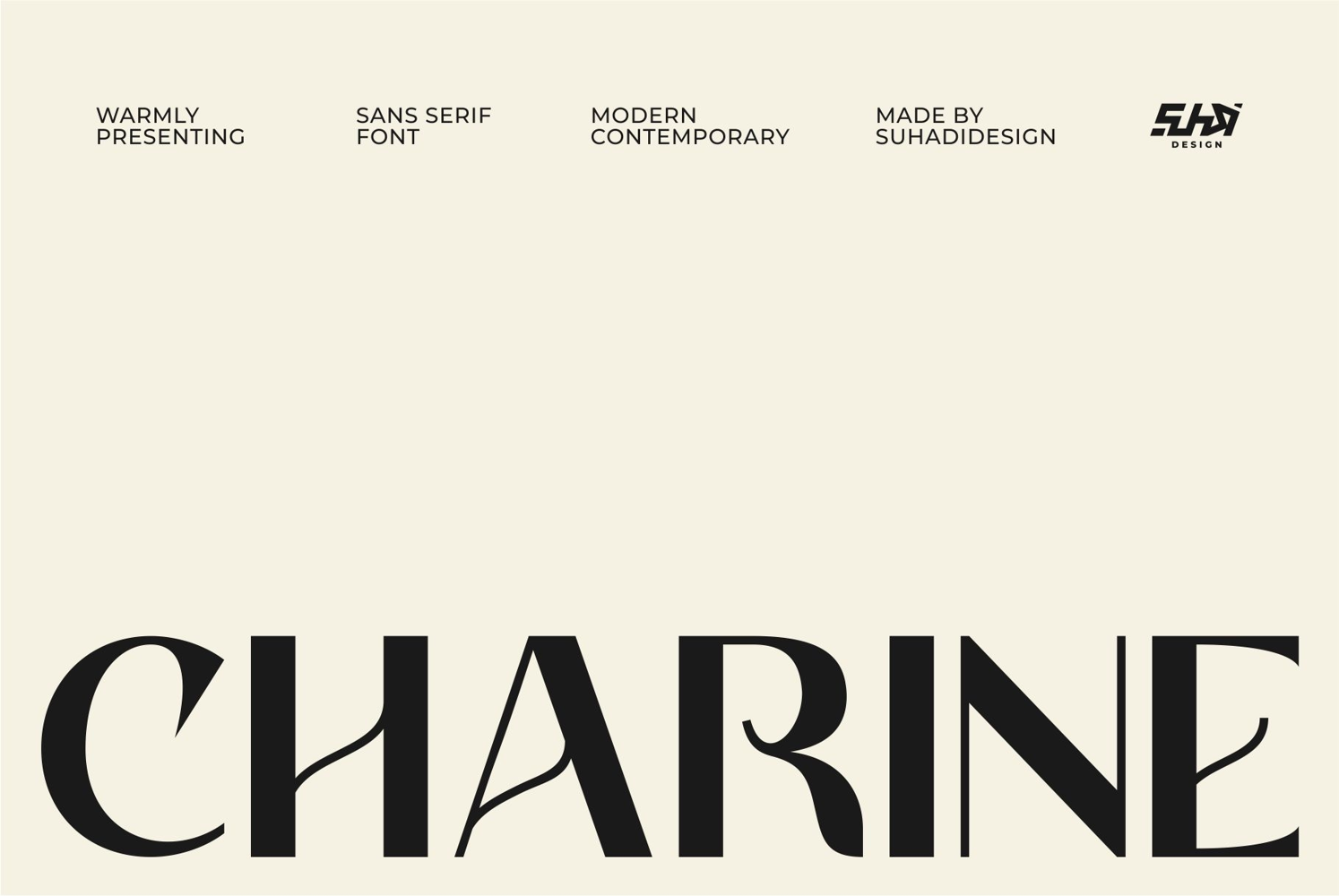
Charine - Modern Sans Serif Font
Charine
Charine - Modern Sans Serif Font
The latest stylish modern font is here, and it's highly sought after by both women and men. This is the Charine font. Charine is a simple, modern sans serif font. With its modern and minimalist design, this font has become a favorite on the market. We've kept this font looking elegant, classy, ​​and stylish. The Charine font is the perfect choice for brands, logos, trademarks, magazines, designs, books, cosmetics, beauty, publications, branding, brand names, business cards, social media, classy designs, newspapers, branding, beauty, and other projects. Charine is here to elevate the quality of your designs.
• All Capital Letters